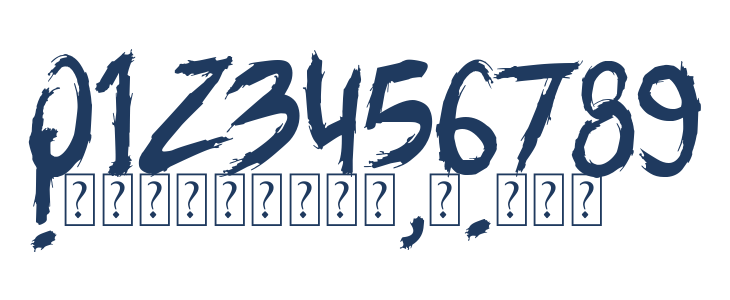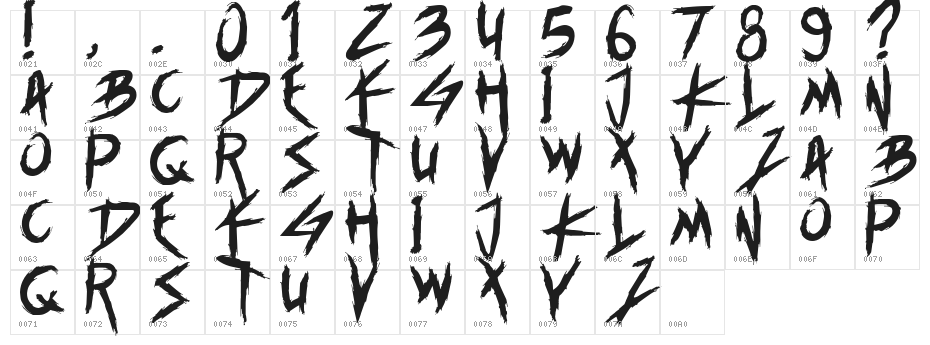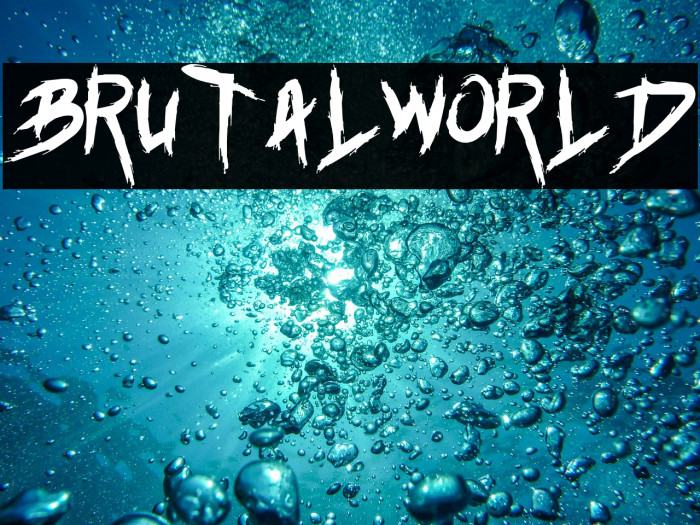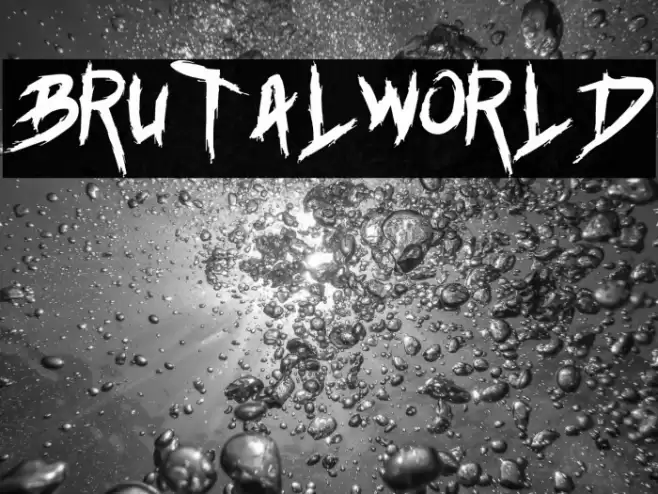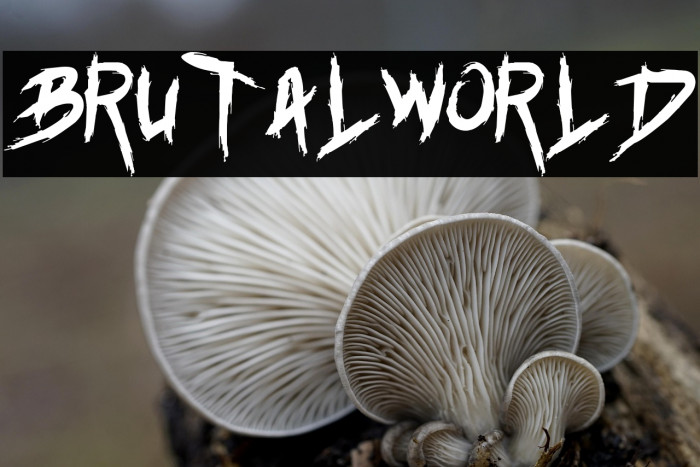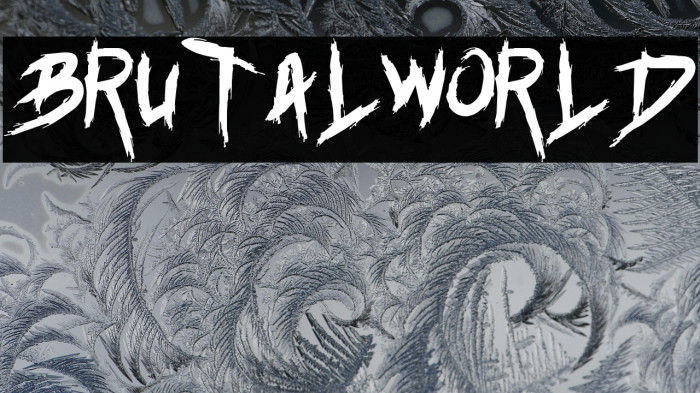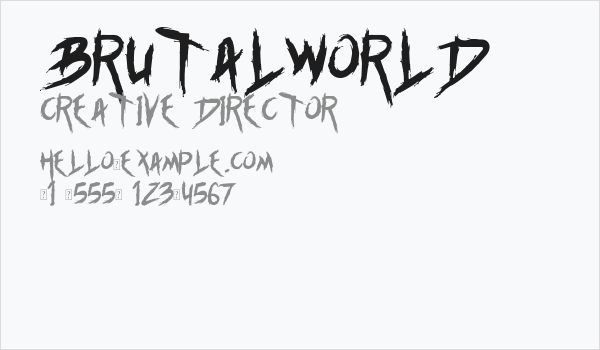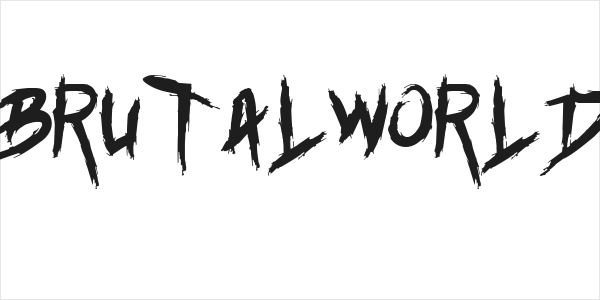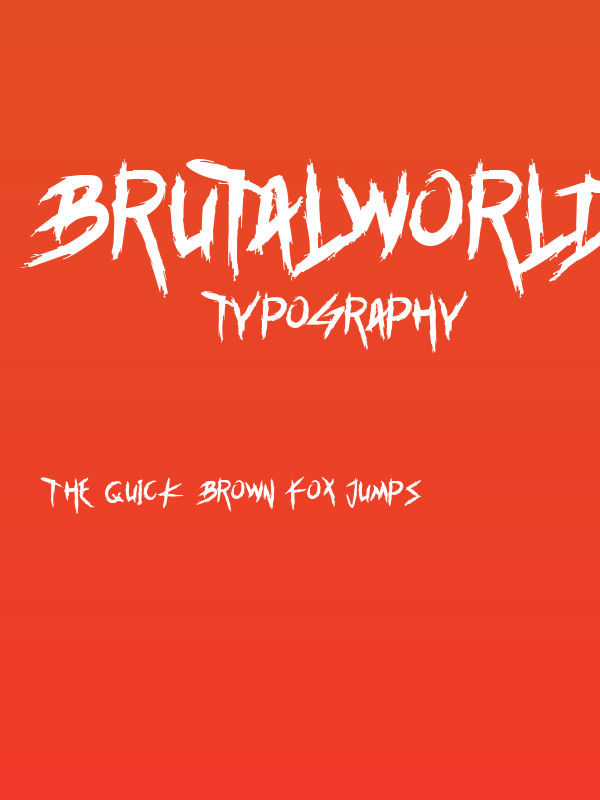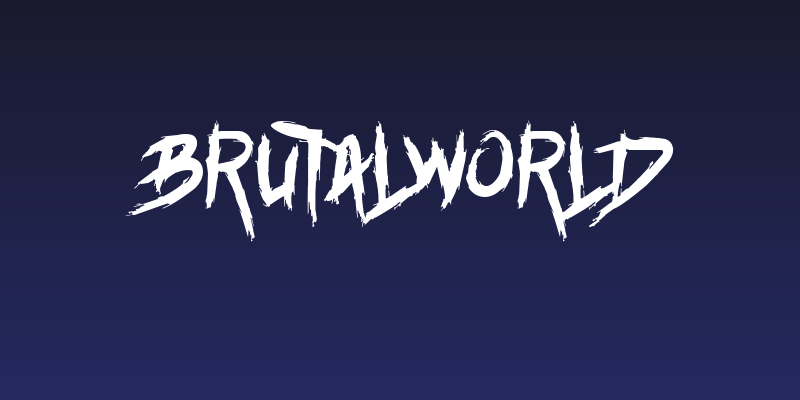
Brutalworld Font
Brutalworld Description
This font exudes a raw, edgy aesthetic with its jagged, brush-like strokes that create a sense of movement and intensity. Each character appears as if it has been slashed onto the page, giving it a rebellious and aggressive feel. The uppercase and lowercase letters maintain a consistent style, with sharp angles and uneven edges that contribute to its chaotic charm. Numbers and special characters follow the same design principles, ensuring a cohesive look across all elements. This font is perfect for projects that require a bold statement, capturing attention with its unique and striking appearance.
| Proposed Projects | Ideal for music album covers, extreme sports branding, horror movie posters, and edgy graphic designs. |